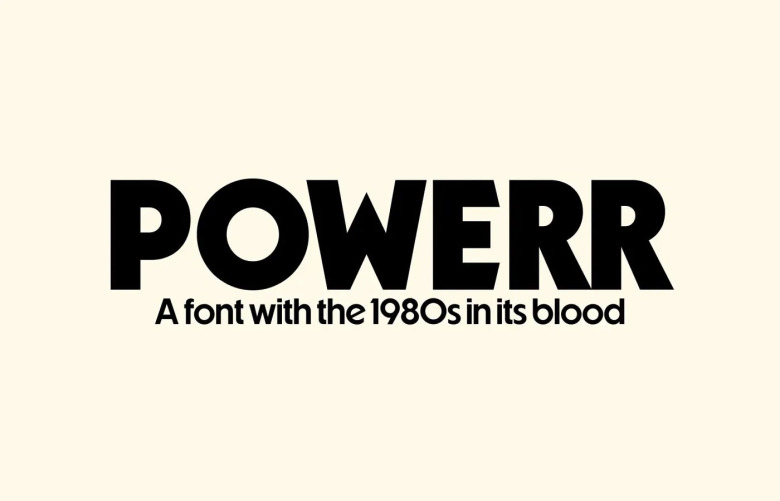
Powerr Font Family
Powerr is a free simple, san-serif font family. It has wide design and many functions Powerr has 80s in the blood. This is a font begging to be slapped on an ad for the brand new Polaroid camera or maybe a cool old car. And in short you are the Powerr! The font you’re only going to need, if you really want to speak the eighties! You’ll even get cool bonus stuff like terminal conflict detection and four stylistic sets. So go ahead, fire up Powerr when you’re feeling that twinge of nostalgia.
Powerr Sans Serif Font Family